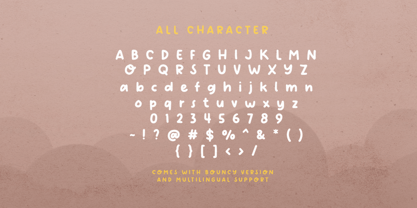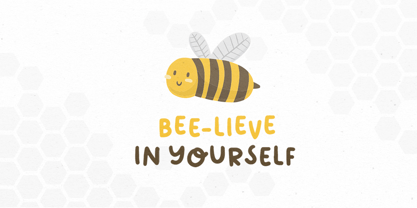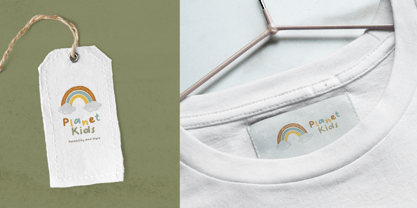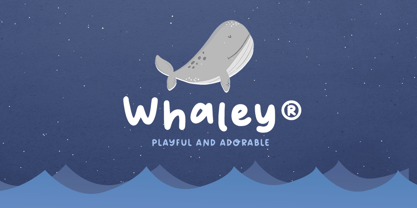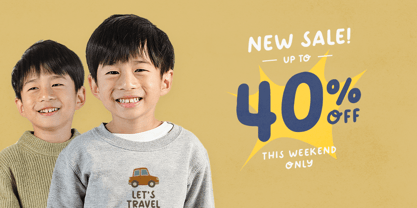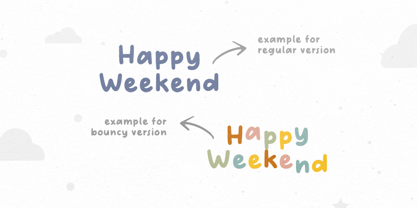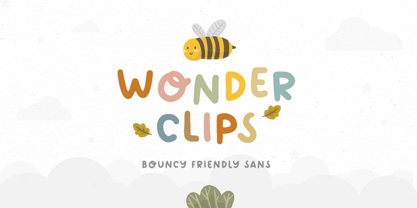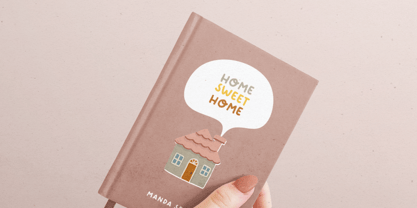
Wonder Clips
The Wonder Clips Font Family was designed by Sarid Ezra, Liwa Shidqy and published by Bale Type. Wonder Clips contains 2 styles and family package options. More about this family
Wonder Kids is a friendly handwritten sans that comes with bouncy version. You can combine the regular and bouncy font in a same word to make your word looks cute and interesting. You can use this font for many purposes especially for kids and children target such as book cover, merchandise, quotes, or branding. To complement this font, you can use the cute illustration that comes in PNG and AI for free. This font also support multilingual.